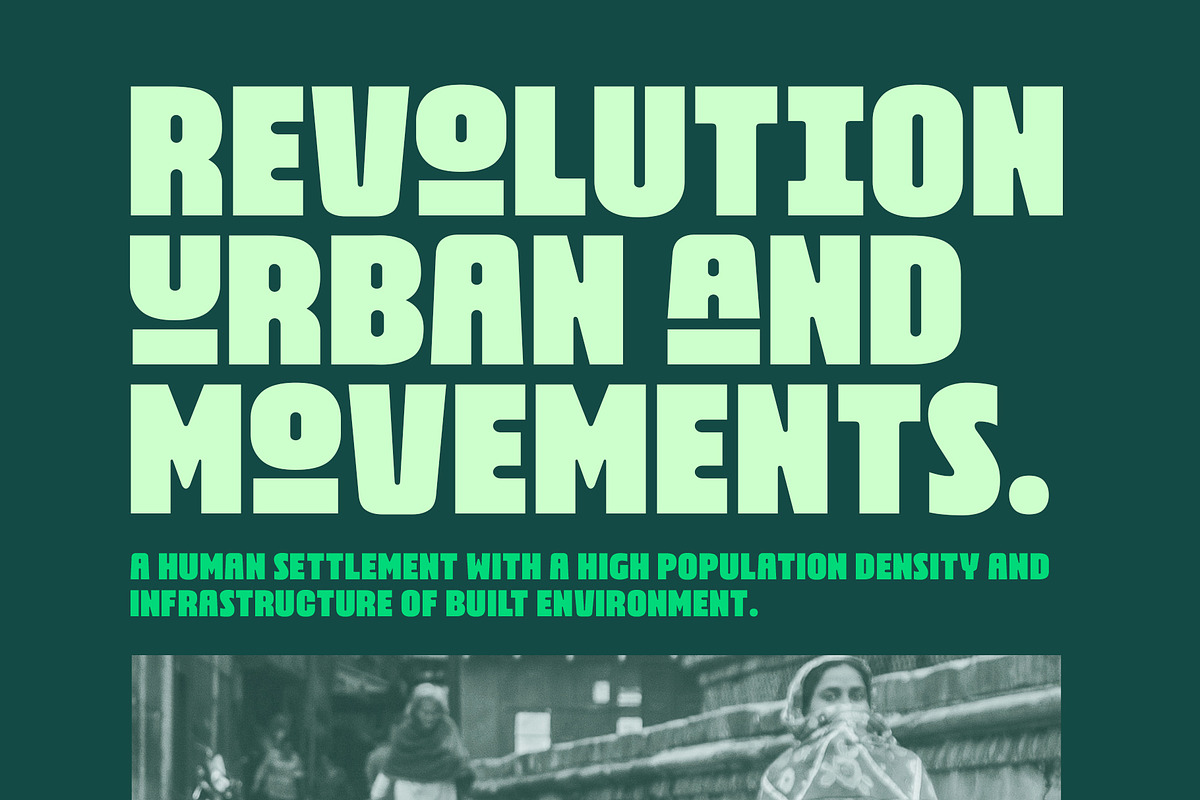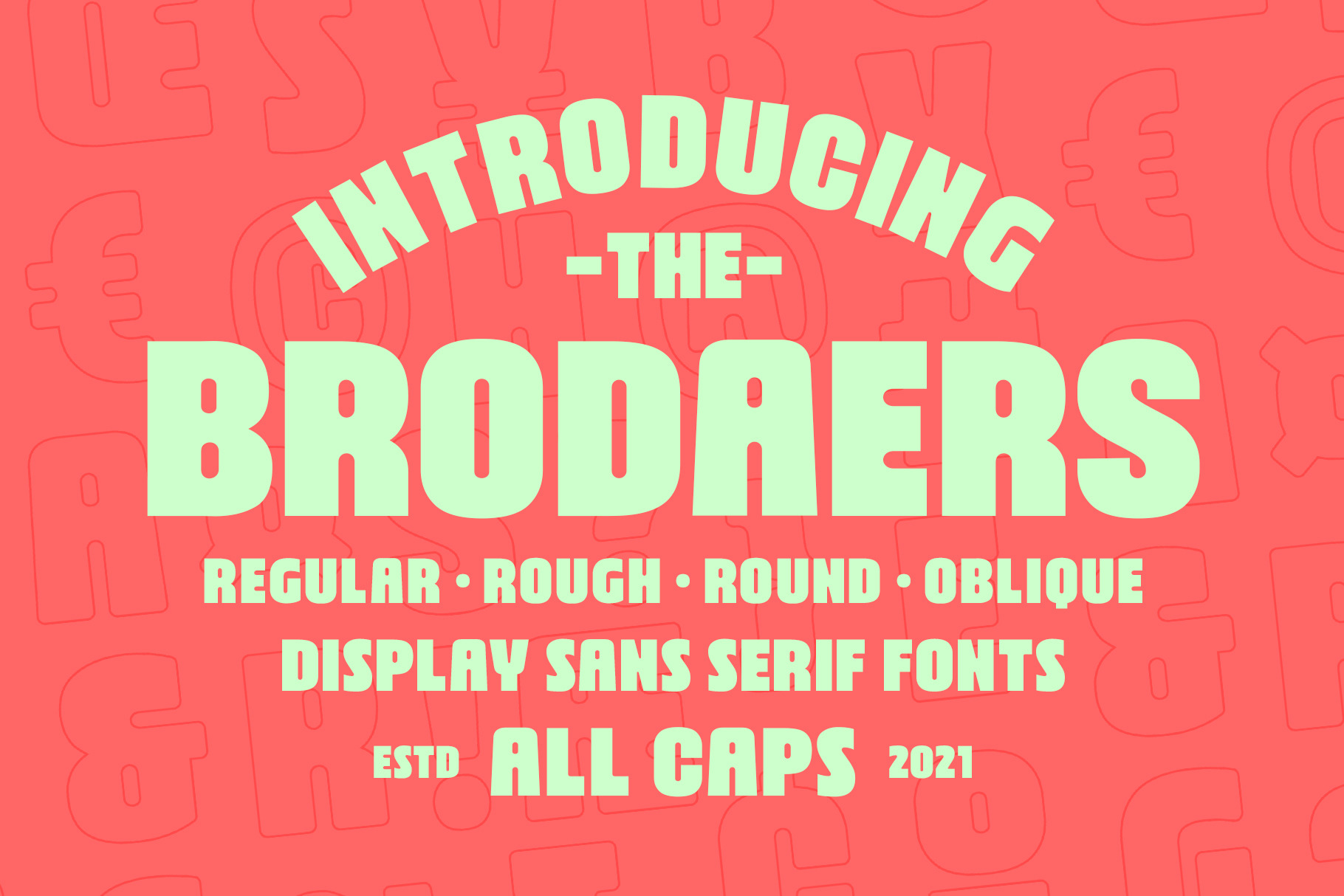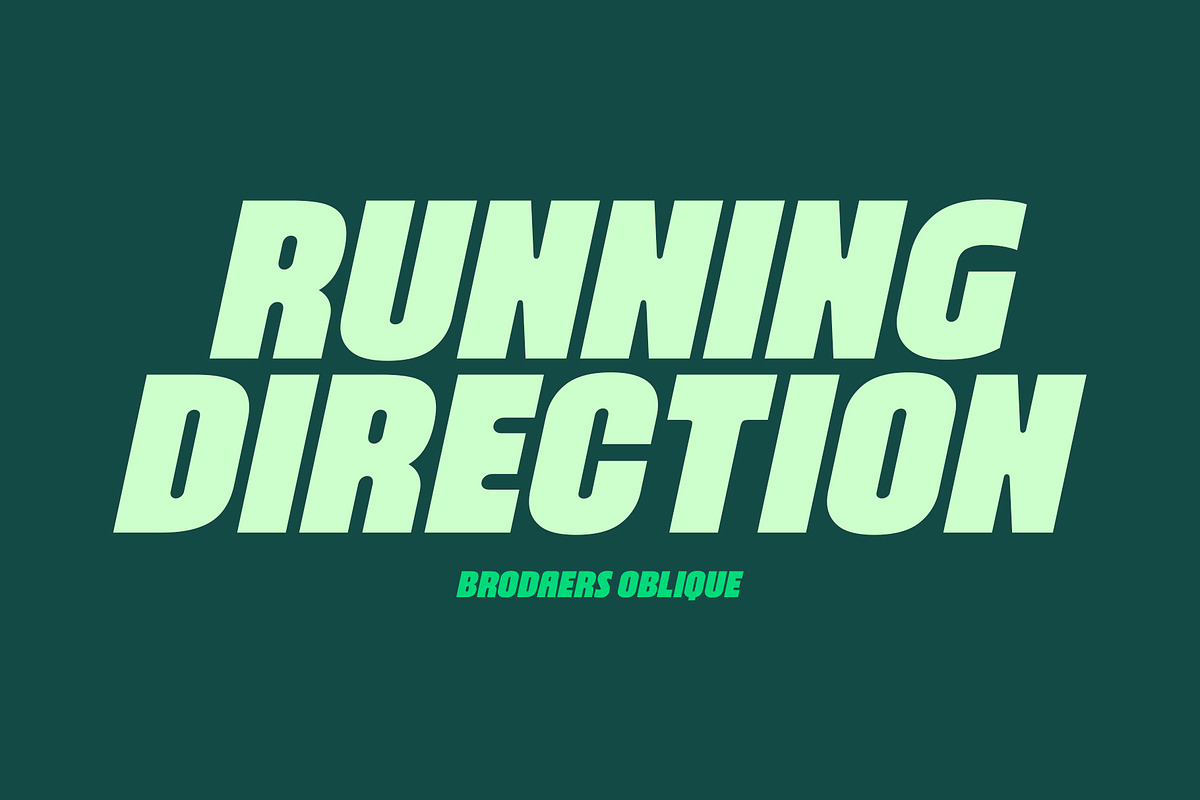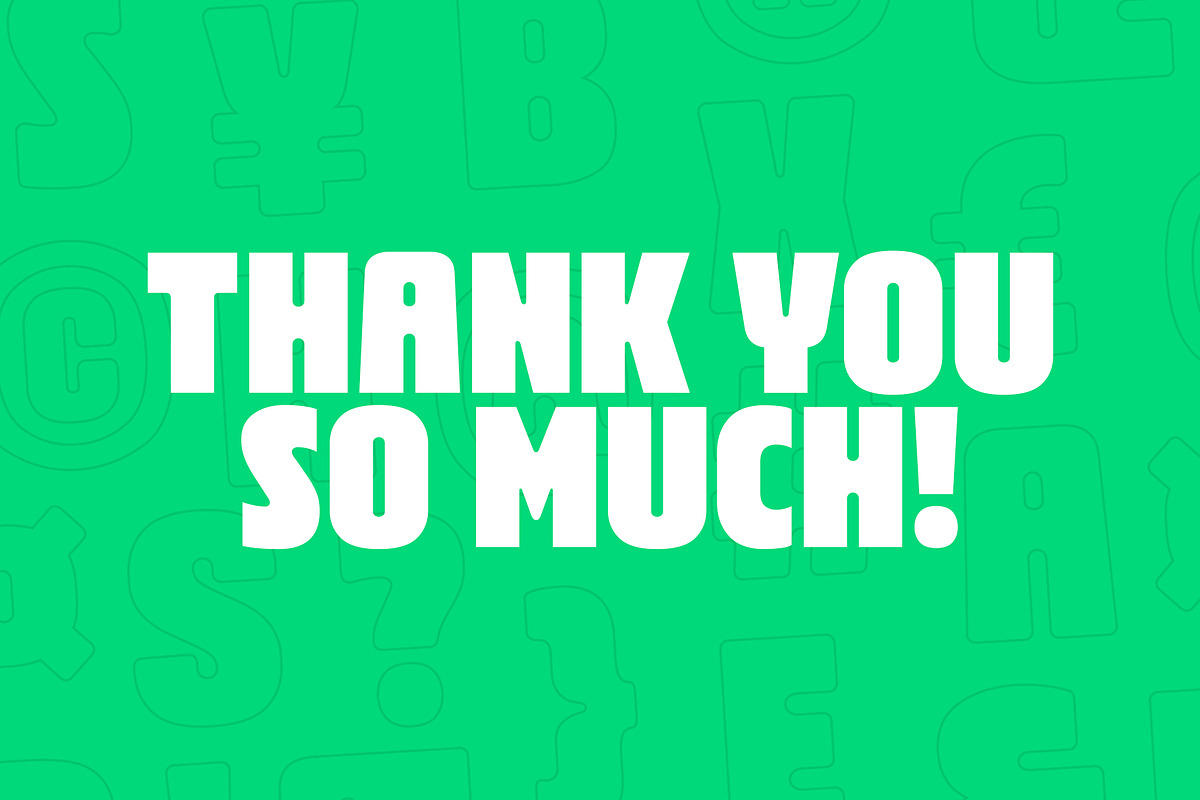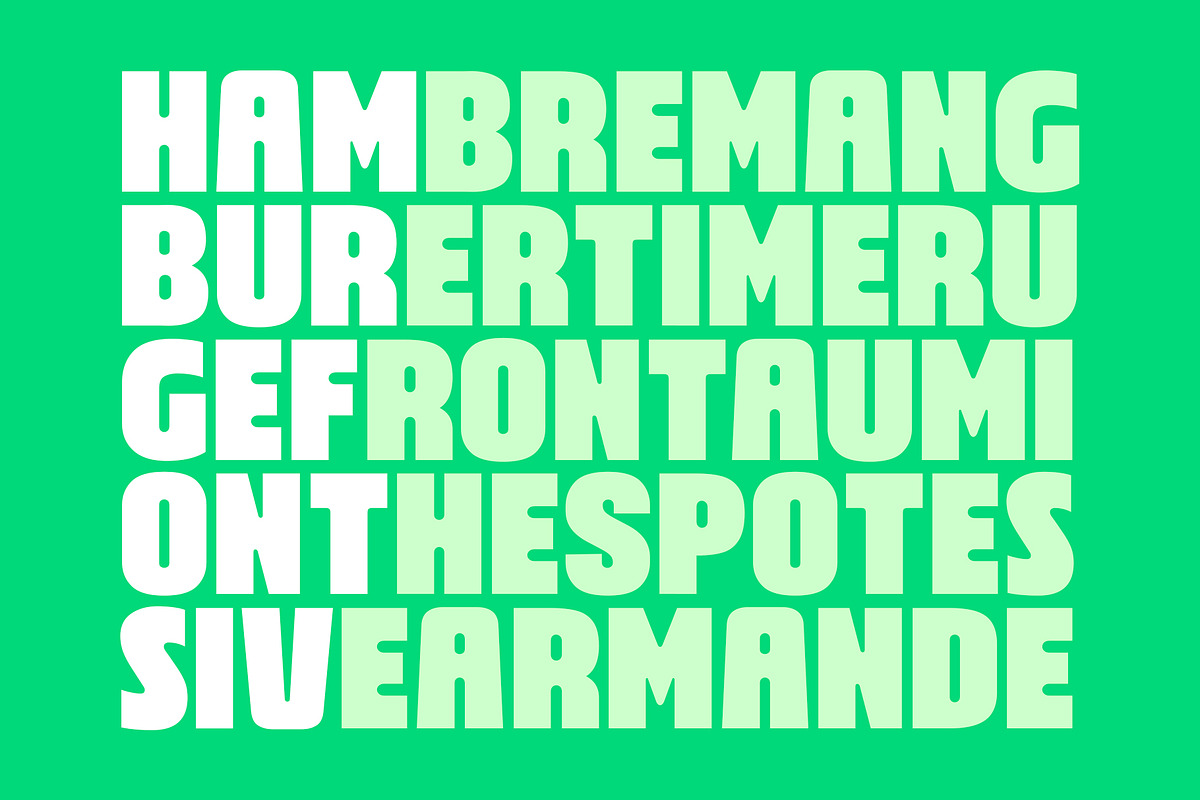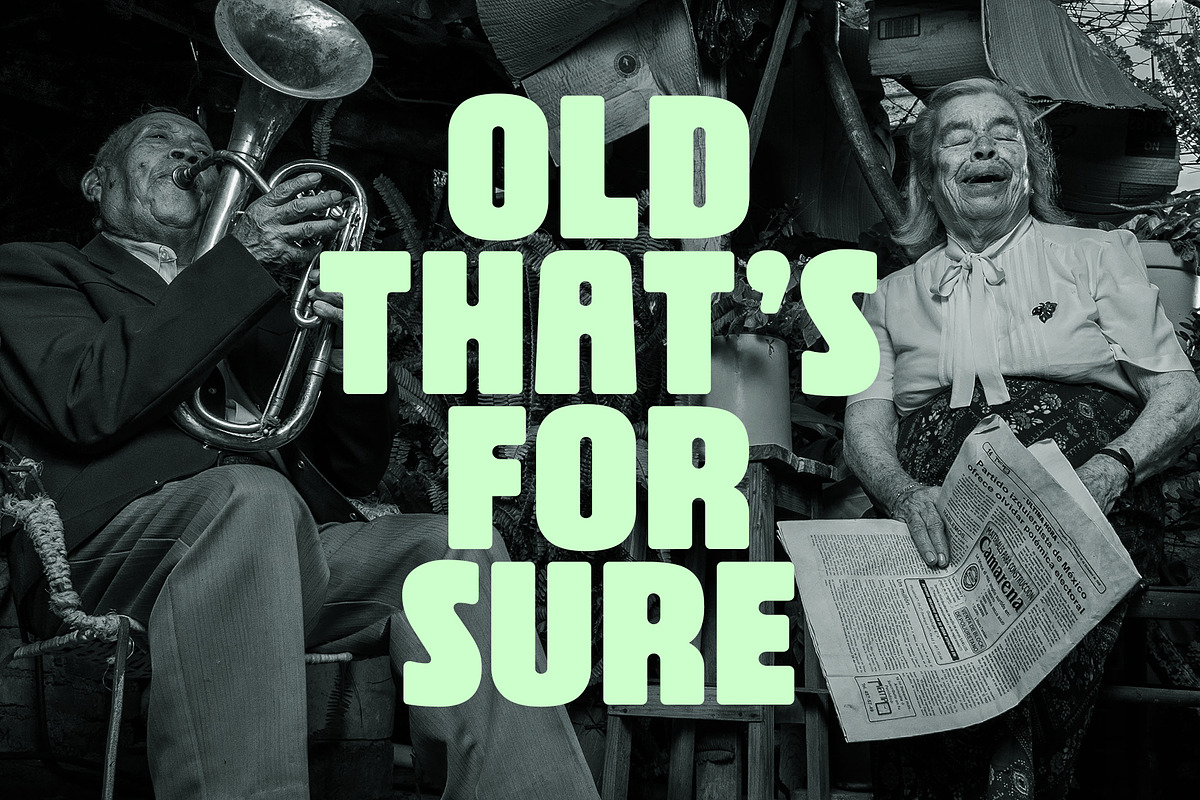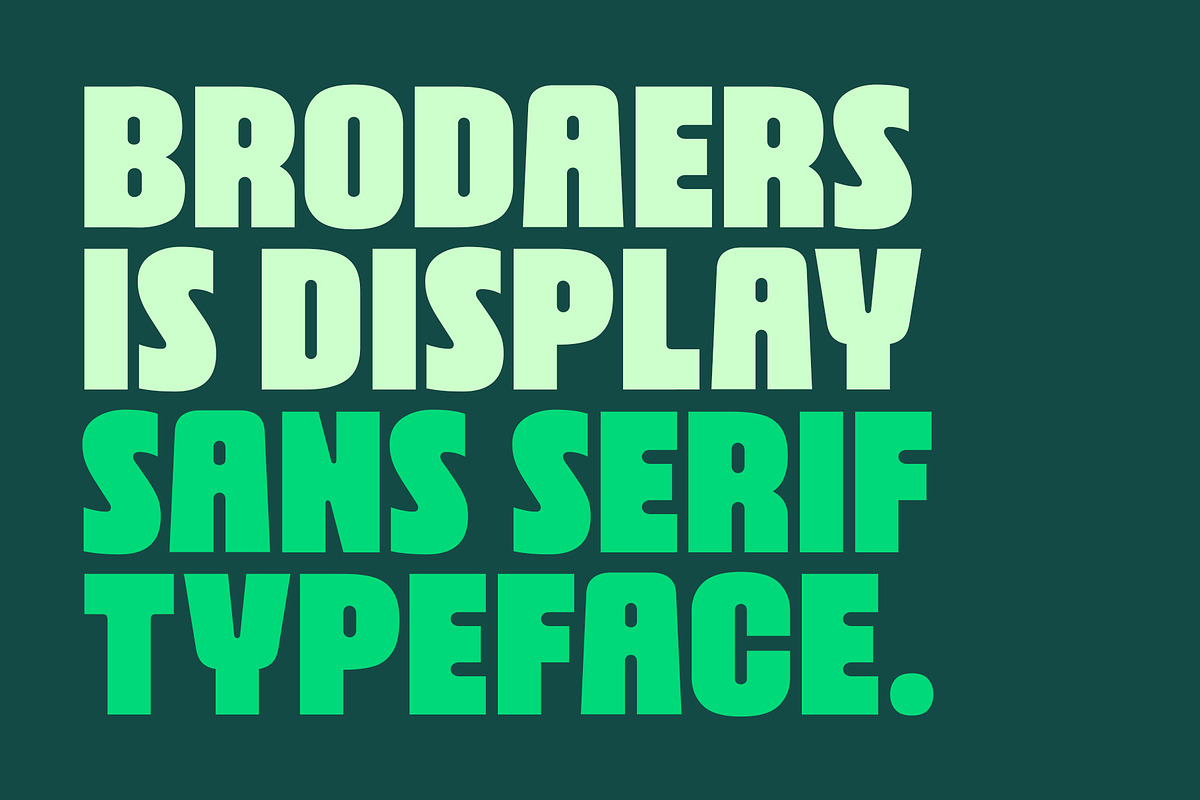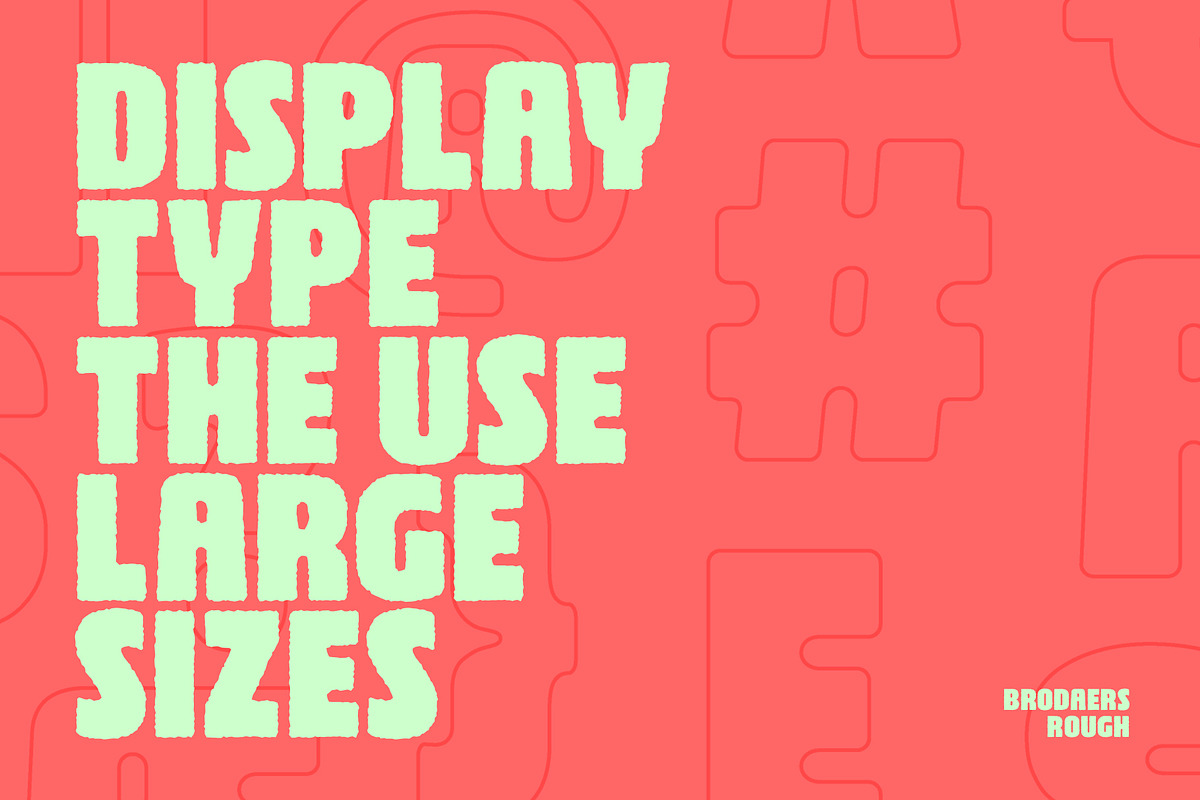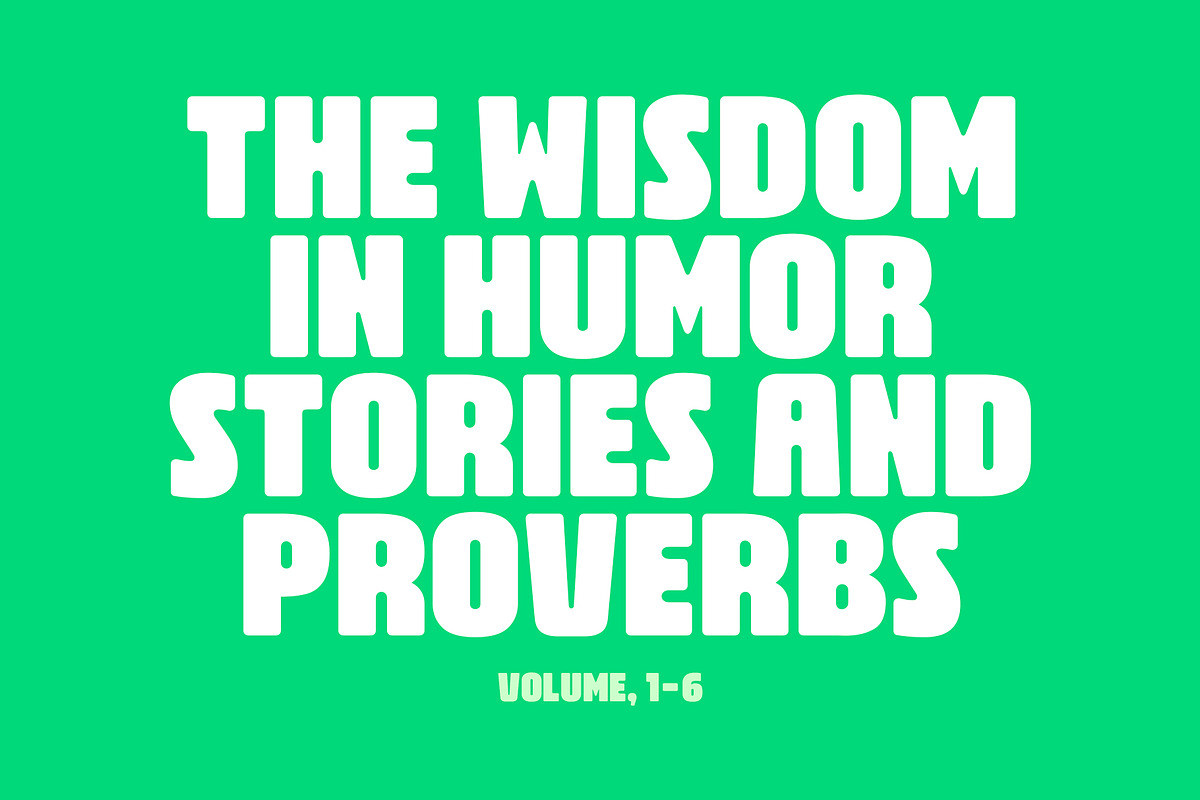
Brodaers Font
Brodaers is a display sans serif font. With the initial concept of the inner shape, made round. Comes in six styles, which makes it easier for the project you are working on, as well as alternative glyphs as an attractive option.
It comes with 400+ glyphs, which also includes multilingual languages. Brodaers is perfect for headlines, branding, and many more.
- Number & punctuation symbols
- Stylistic sets
- International characters (Multilingual)